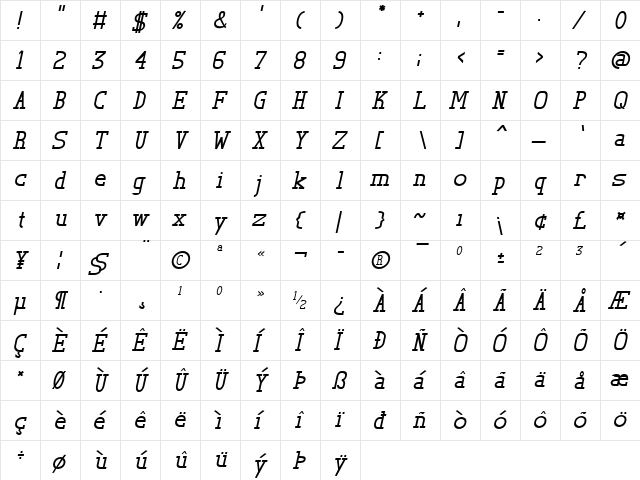
TL Serif Italic
Design Context for TL Serif Typeface
TL Serif brings classic typographic sensibility to the table — its serifs and measured letterforms reflect centuries of print heritage. The dynamic lean of this cut emphasises speed and emphasis in any layout.
Pro Tip: Set TL Serif with slightly loose tracking in headlines to let each letterform's detail read clearly at display sizes.